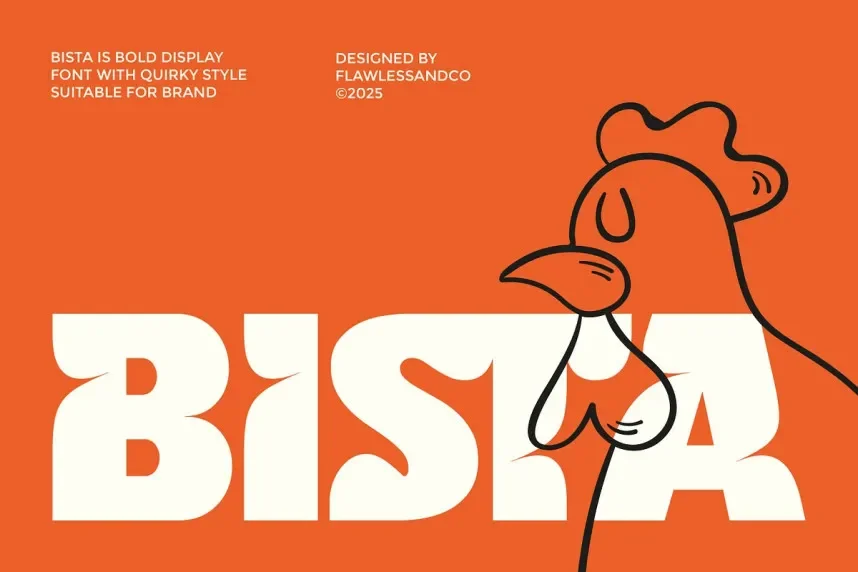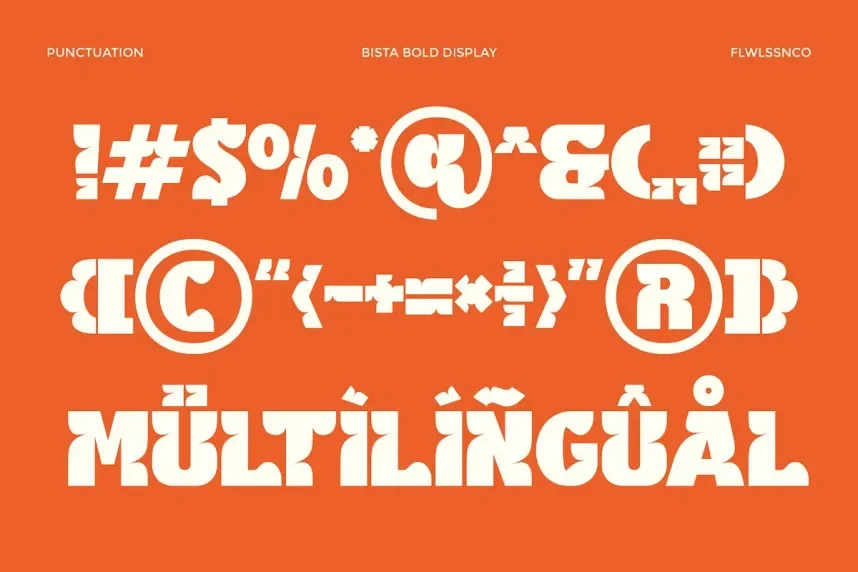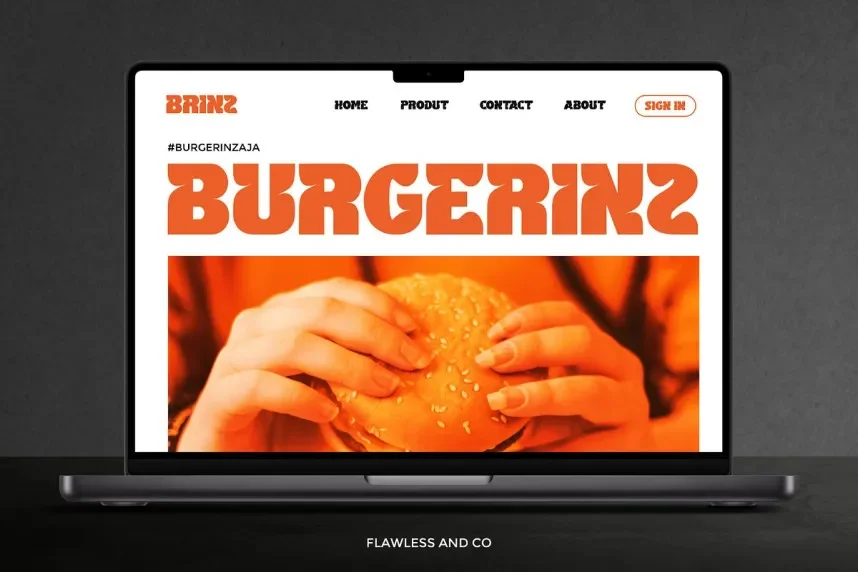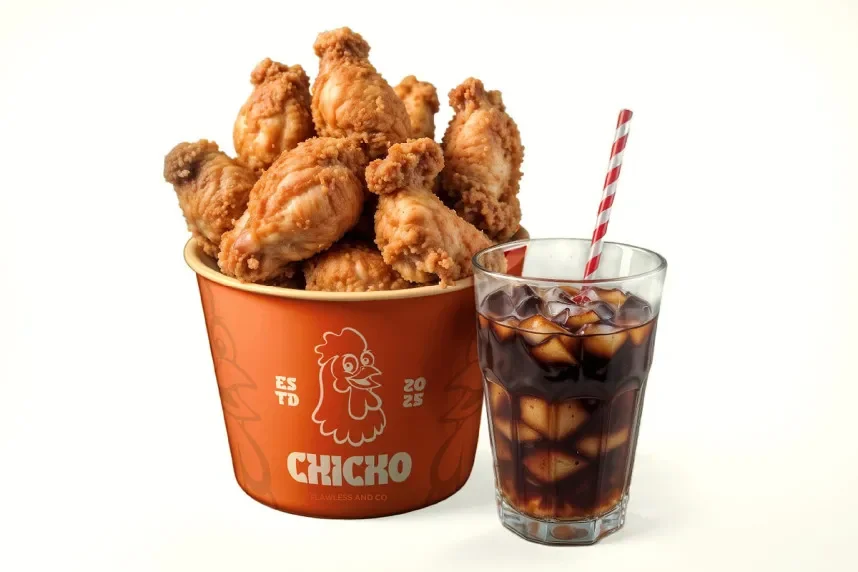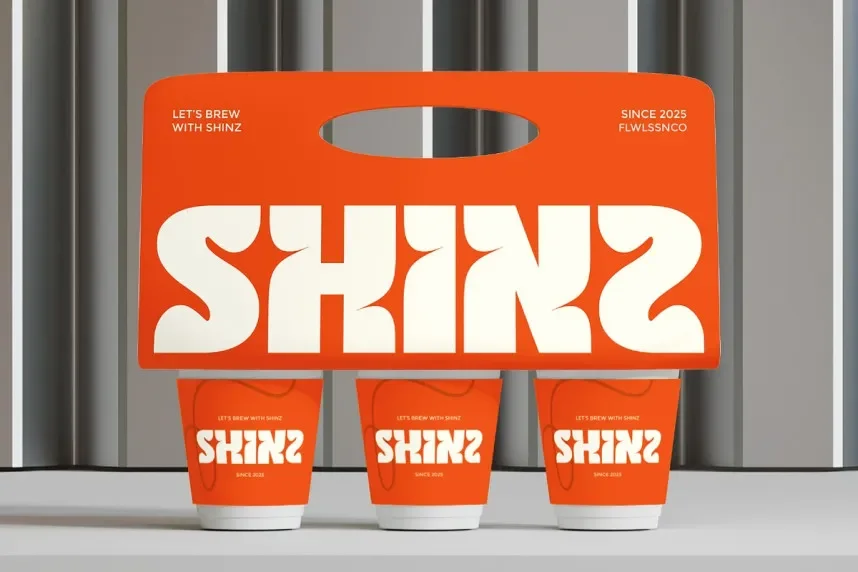
Bista Font is a rounded display typeface designed to solve readability and visual consistency challenges in logos, headlines, and promotional materials. Its smooth curves enhance legibility while maintaining a contemporary aesthetic.
The font features uniform stroke thickness, soft terminals, and balanced spacing. Rounded letterforms create approachable and friendly visuals without losing structure, making it suitable for social media graphics, signage, and packaging design. Alternate glyphs allow varied typographic expression.